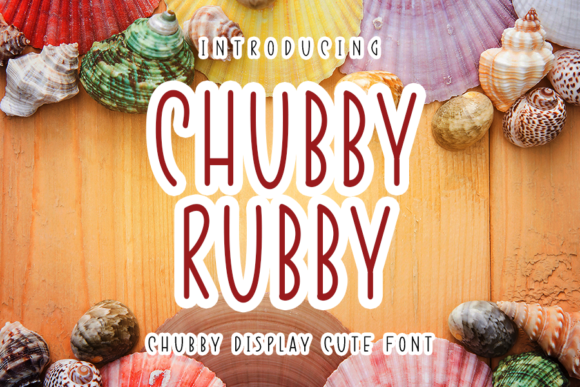
The Perfect Pen Stroke: Discovering Chubby Rubby Font
Have you ever sat at your desk, surrounded by blank sheets of paper, and felt a sudden urge to let your creativity run wild? The scribble of a pen, the dance of a pencil, the flow of a digital brush – it’s moments like these that spark the magic of design. And, for many of us, the right font can be the catalyst that sets our imagination ablaze.
Enter Chubby Rubby Font, a stylish handwritten font that embodies the essence of authentic, free-spirited creativity. Designed to be a true favorite, this font is poised to become your go-to match for both formal and non-formal contexts. Whether you’re crafting a personal letter or a professional brochure, Chubby Rubby Font is sure to bring a touch of warmth and personality to your work.
Chubby Rubby Font Key Features
- Unique Characteristic: The font features a rounded, childlike design with a playful and whimsical feel
Chubby Rubby Font Review
Overall, I think the Chubby Rubby Font has a lot of potential, but it falls short in some areas. Let’s dive into what works well and what doesn’t.
- The unique and playful design of the font is sure to catch attention.
- The varied character sets and ornaments add a lot of character to the font.
- The font is well-suited for informal or creative projects where a quirky vibe is desired.
- The font can be quite difficult to read at smaller sizes, which limits its usability in certain contexts.
- The inconsistent spacing and alignment of certain characters can make it hard to use in long blocks of text.
- The font may not be suitable for formal or professional projects due to its playful and informal feel.
The Chubby Rubby Font is a fun and creative option for designers who want to add some personality to their projects. While it has some limitations, it’s well-suited for the right type of project. With some careful consideration and use, it can be a great addition to any designer’s toolkit.
The Chubby Rubby Font is perfect for creating playful and whimsical designs. Use it for:
- Food labels and packaging